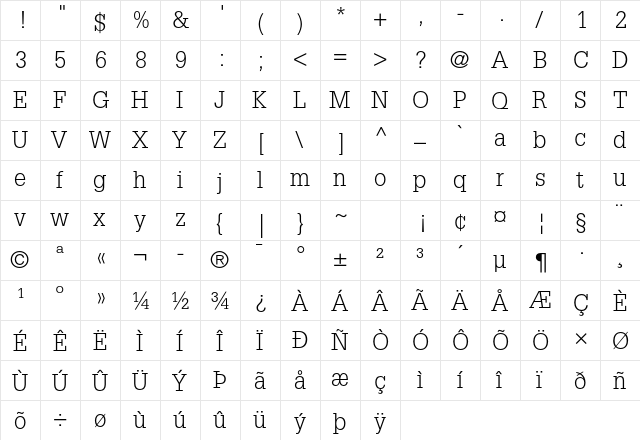
Glypha LT Std 45 Light
| Designer | Adrian Frutiger |
Design Context for Glypha LT Std Typeface
Glypha LT Std offers clean, dependable letterforms without strong stylistic allegiance, making it a practical choice for designers who need flexibility. Its slender proportions lend an understated elegance to any composition.